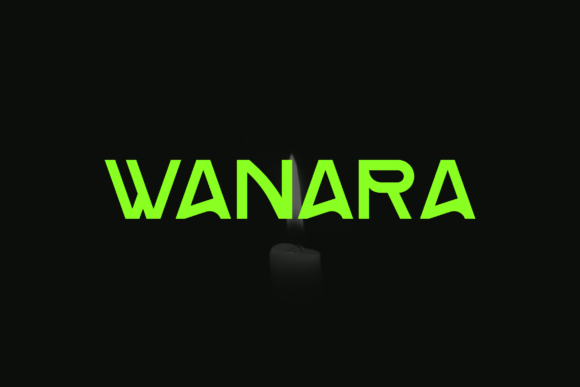
Wanara: A Clean, Versatile Sans Serif for Modern Web Design
It started with a hero section. I was redesigning a small-business coaching website—no big launch, no aggressive timeline—just a quiet afternoon refining the homepage layout. The headline needed clarity and calm confidence, not flash. I swapped in Wanara, and instantly, the page exhaled. No dramatic kerning tweaks, no frantic weight switching—just clean lines, smooth curves, and balanced proportions doing exactly what they were designed to do: support the message, not compete with it.
Wanara is a contemporary sans serif font built for digital spaces where readability meets restraint. It’s not minimalist to the point of sterility, nor friendly to the point of informality. It sits comfortably in that sweet spot: modern but grounded, simple but expressive, neutral enough for any brand voice yet distinct enough to feel intentional.
In practice, I used Wanara across three key areas of the site: the main headline (“Clarity Starts Here”), subheadings in service sections, and all primary buttons (“Book Your Discovery Call”). On desktop, its open counters and generous x-height made scanning effortless—even at 24px on a light gray background. On mobile, I tested it at 20px with 1.4 line height: still crisp, still legible, even with reduced screen real estate. No blurring, no visual fatigue after scrolling through six sections.
What stood out most was how well Wanara handled contrast. Over a soft gradient image banner? It held its shape without needing heavy text shadows or outlines. Against deep charcoal text on white? Still airy and inviting. And on dark mode (which the site supports), the medium weight maintained just the right presence—neither too thin nor overly bold. That kind of adaptability is rare in a single sans serif font.
For layout hierarchy, Wanara shines as a heading and accent typeface. I paired it with a gentle serif (a lightweight Garamond variant) for body copy—creating subtle texture without sacrificing cohesion. Wanara’s range of weights (Light, Regular, Medium, SemiBold, Bold) gave me precise control: Light for delicate captions, Medium for section headers, Bold only for the topmost CTA. No need for decorative display fonts or script accents—the personality lives in the spacing, rhythm, and balance of Wanara itself.
That said, Wanara isn’t meant for long-form paragraphs or dense UI labels. Its strength lies in moments that need intention: a course title on a sales page, a boutique store’s “New Arrivals” banner, a portfolio project name beneath a full-width image, or the headline in a campaign landing page. In each case, it elevated the content without drawing attention to itself—a hallmark of strong web design typography.
I also tested Wanara in a few other real contexts:
- A digital brand kit for a wellness studio—used for logo lockups, social media story text, and downloadable PDF guides. Its clean geometry translated beautifully across formats.
- A product landing page for a sustainable home goods line—applied to feature cards, benefit bullets, and testimonial quotes. The consistent stroke width kept visual noise low, letting product photography breathe.
- A blog redesign header—set large and centered above featured posts. Readers told me it felt “calm but confident,” which aligned perfectly with the editorial tone.
Readability on mobile wasn’t just about size—it was about rhythm. Wanara’s even letterfit and predictable spacing meant users didn’t pause mid-scan to decode awkward gaps or cramped characters. Even at smaller sizes (16px for secondary buttons), the uppercase “I”, lowercase “l”, and numeral “1” remained distinguishable—no squinting, no misreads. That’s crucial for conversion paths, especially on touch interfaces where micro-interactions matter.
Font pairing felt intuitive—not prescriptive. With Wanara as the anchor, I found success pairing it with:
- A warm, low-contrast serif for long-form content (think editorial blogs or course lesson pages)
- A restrained monospace for code snippets or technical highlights
- Even a subtle handwritten font—used sparingly—for signature-style accents (like “hand-signed” notes in email campaigns)
But honestly? Wanara often doesn’t need much help. Its versatility means you can build a cohesive digital brand identity using just two weights: Medium for headings and Regular for supporting text. That simplicity reduces cognitive load for both designers and users—and in today’s fast-scrolling, multi-device world, that’s not just elegant. It’s functional.
And sometimes, the best design decisions aren’t the loudest ones. They’re the ones that simply work—quietly, consistently, and with unmistakable care.